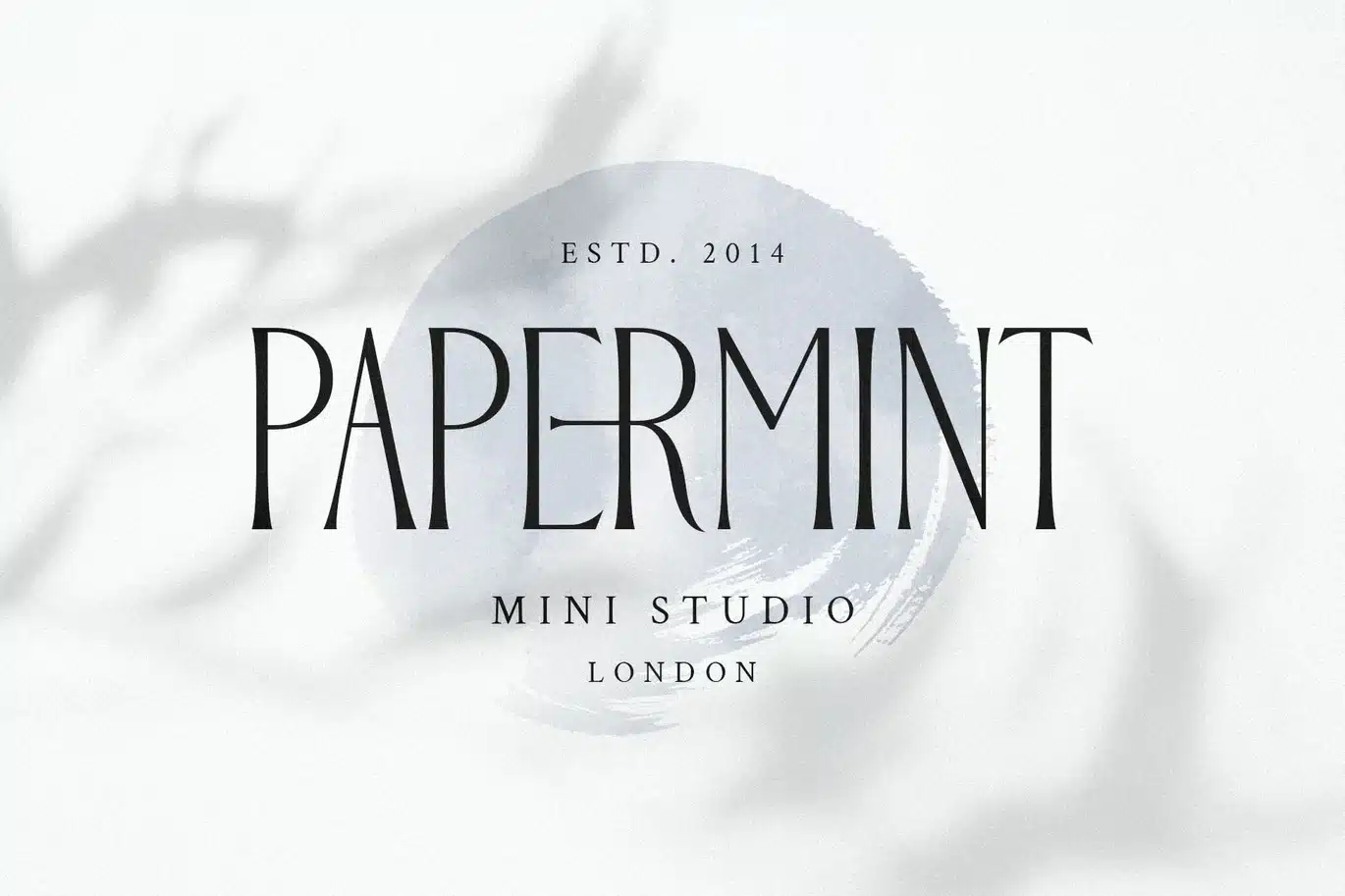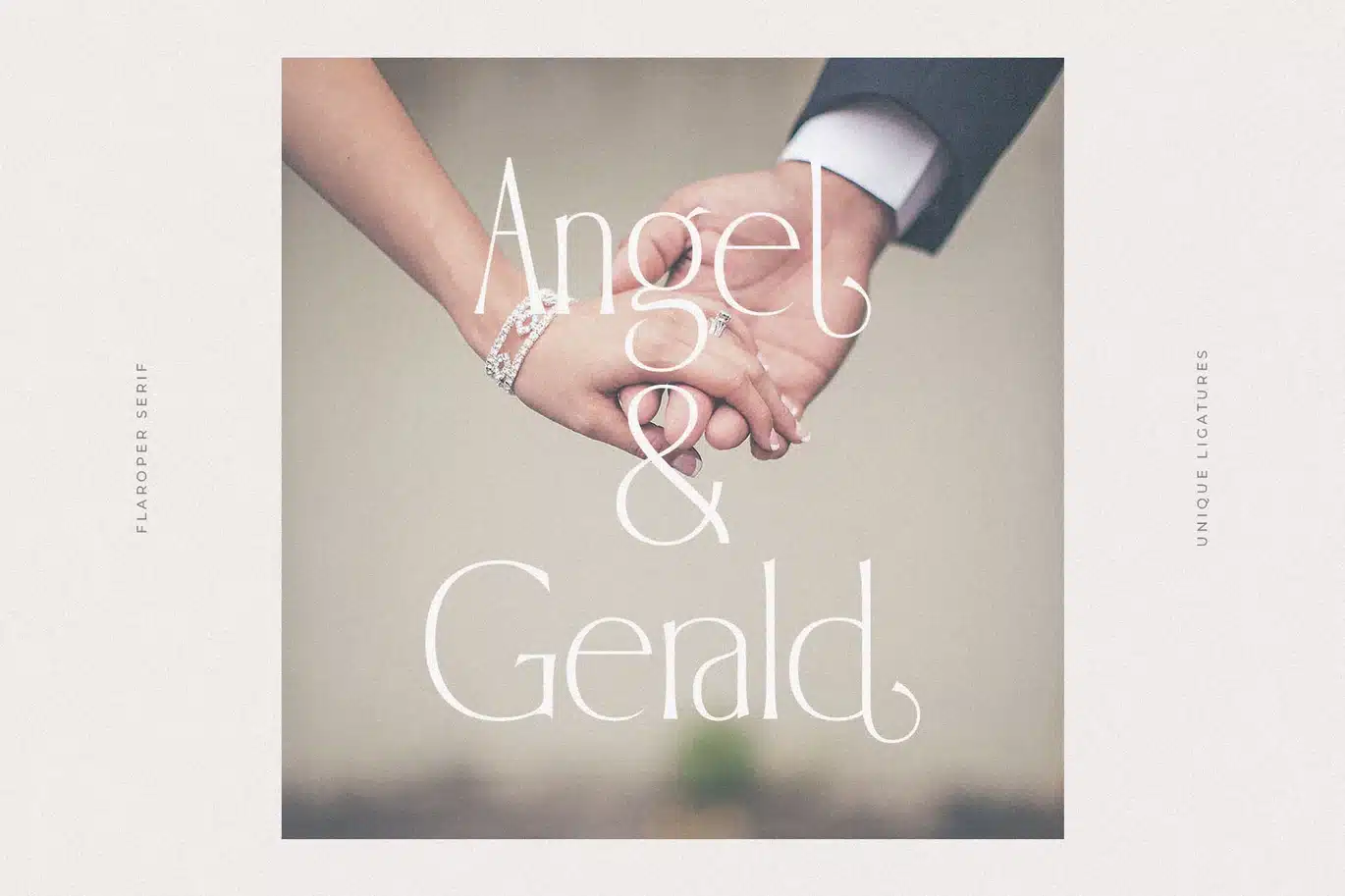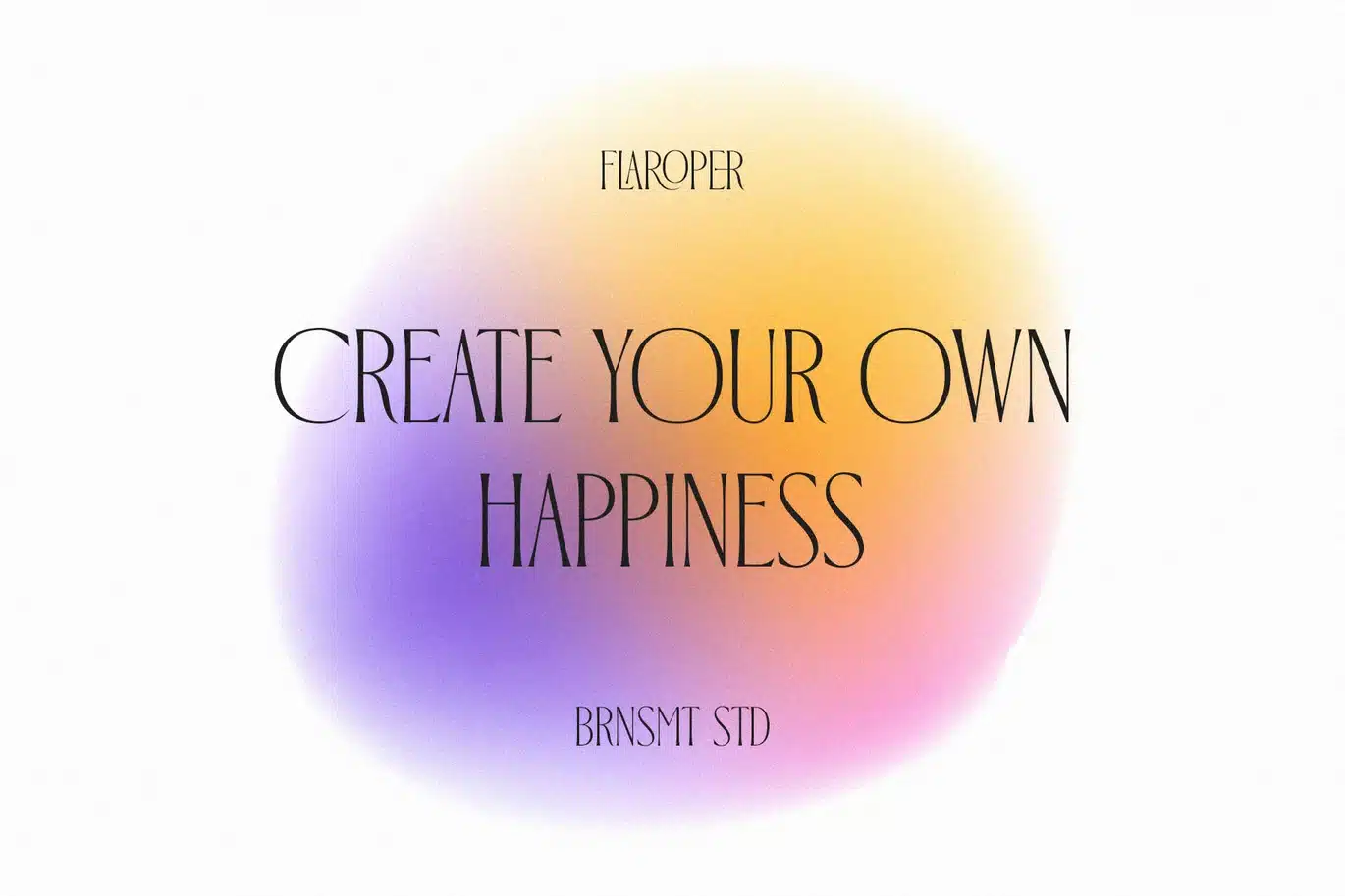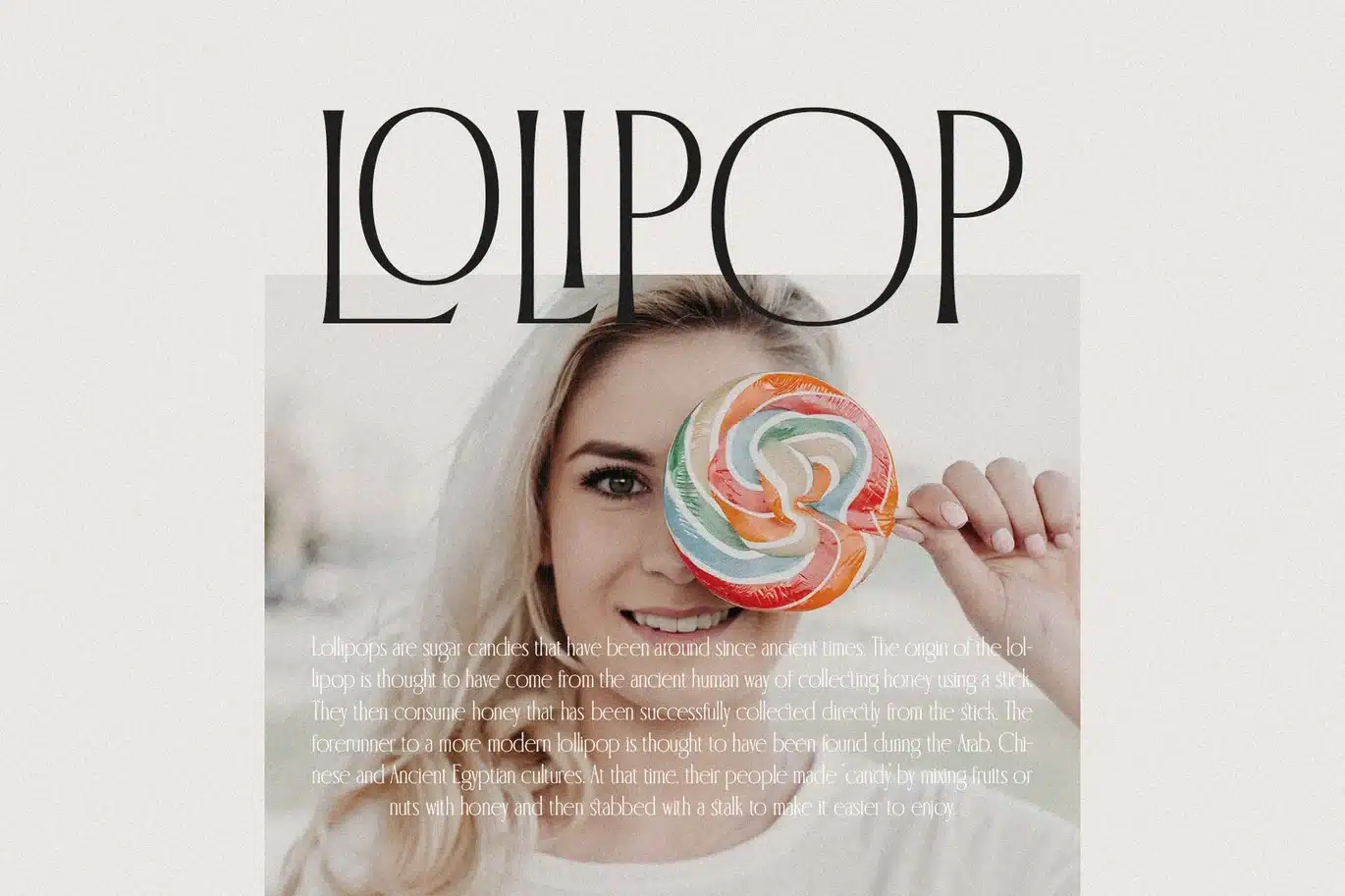
Flaroper || Modern Ligature Serif Font
Introducing Flaroper Modern Ligature Serif.
Flaroper is a modern and elegant font, best used as a display for headings, logos, branding, magazines, product packaging and invitations. Flaroper come with clean lines and smooth curves give any project an extra touch of class.